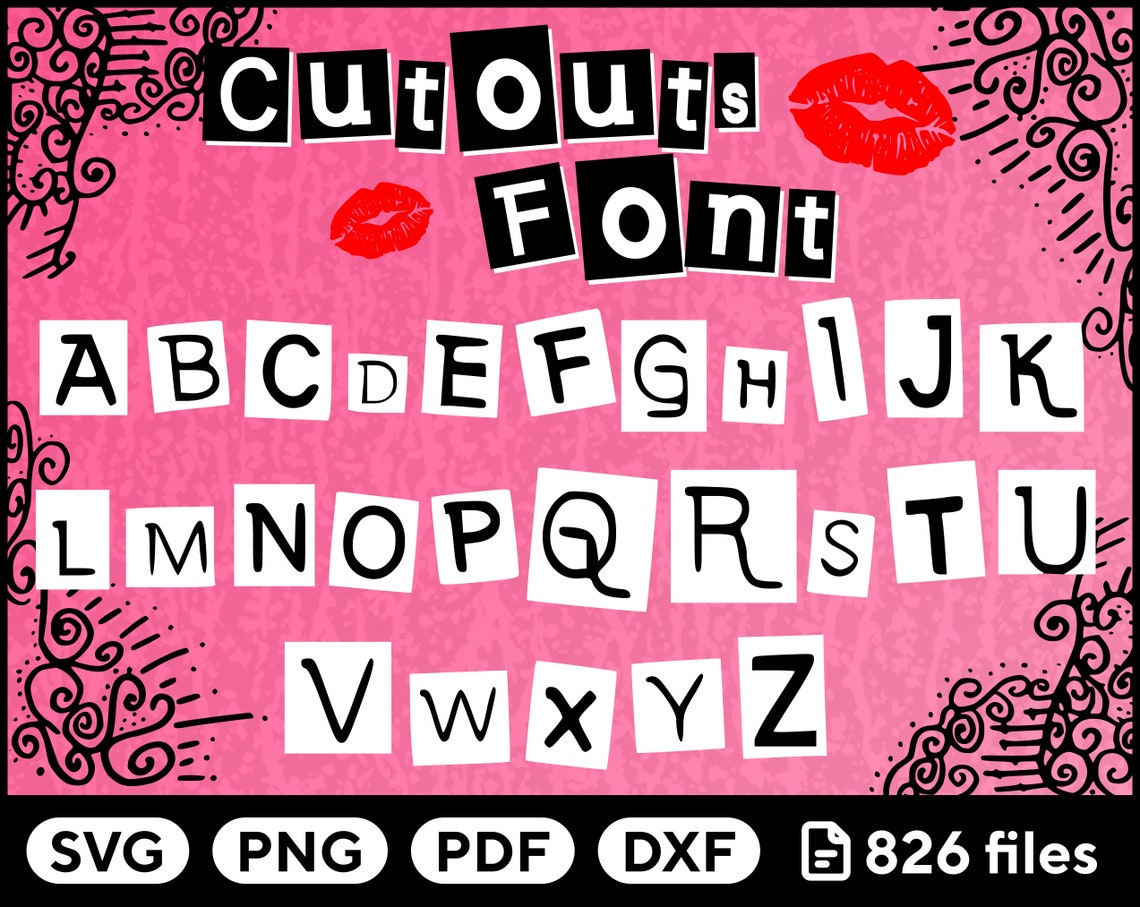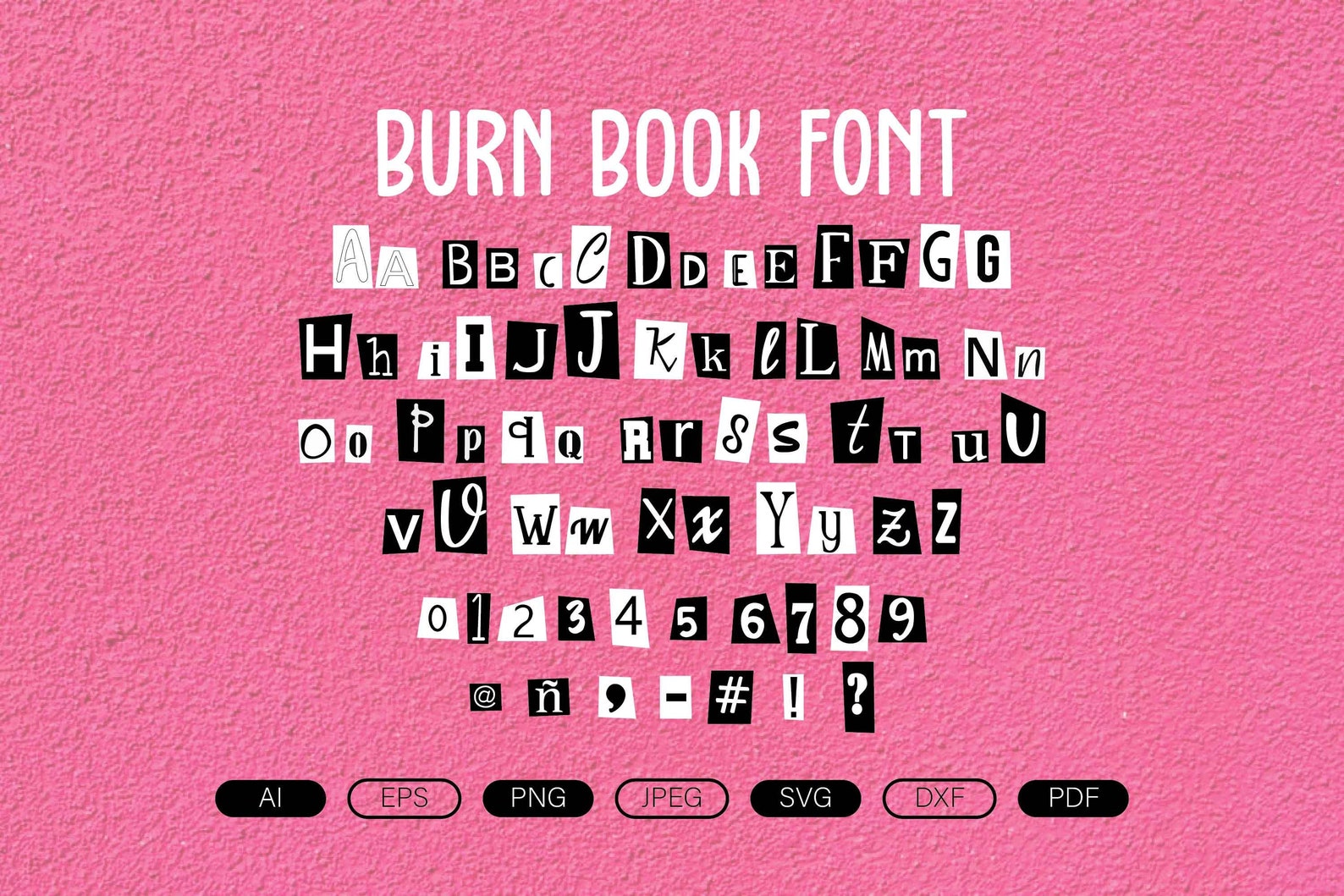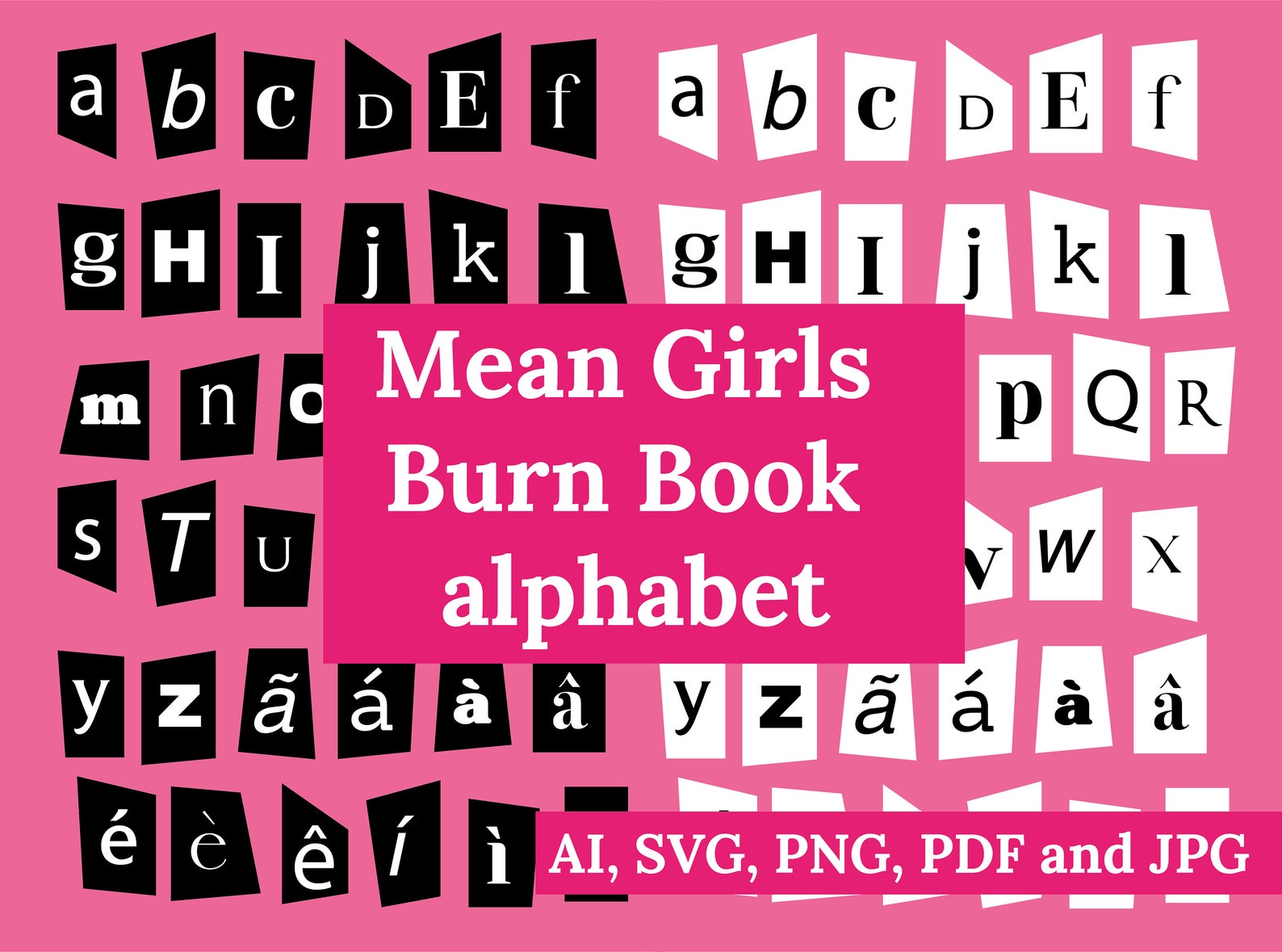
Font Burn Book
Font Burn Book - This free font, designed by brent bernal, offers a clean and modern interpretation of the burn book style. Burn book font in the film “mean girls,” the “burn book” is a scrapbook created by the plastics, a popular clique,. Browse by alphabetical listing, by style, by author or by popularity. Web archive of freely downloadable fonts.
This Free Font, Designed By Brent Bernal, Offers A Clean And Modern Interpretation Of The Burn Book Style.